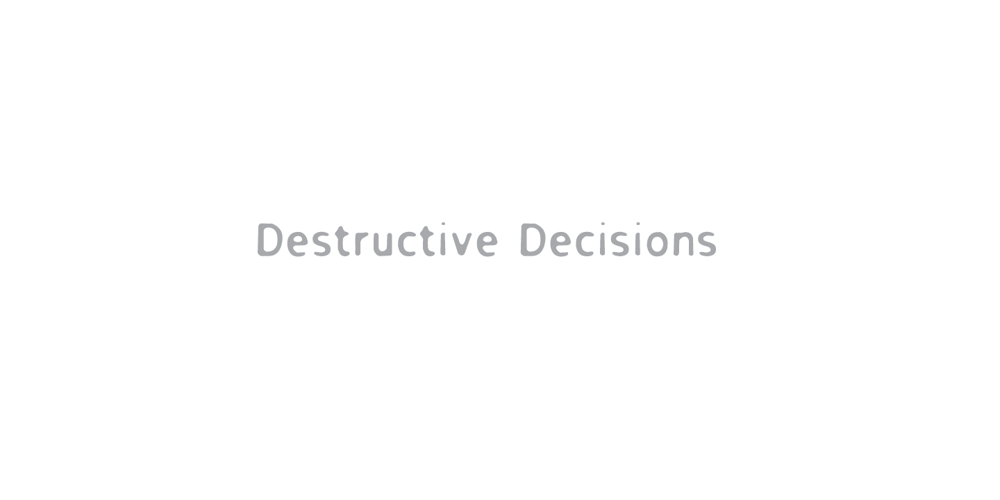
Destructive Decisions Font Family was designed by Chank Diesel and published by Chank. Destructive Decisions contains 1 styles and family package options. Destructive Decisions is a font based upon the inherent flaws of human nature—presented under the guise of complete legibility. At first impression this font is very readable, but upon closer examination you’ll notice the edges are fuzzy and some of the lines are off-kilter. You can read it, but it is also a bit foggy. No matter how hard it strives for perfection. This font was originally designed for a cable tv show about substance abuse, but is now available for use in your web and print designs, too.